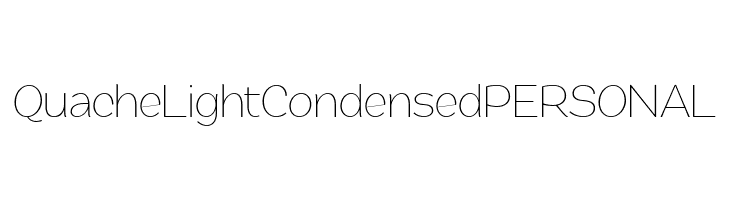
A sleek, modern, and condensed font with a light and minimalist design.
A sleek, modern, and thin font with a condensed style and minimalistic design.